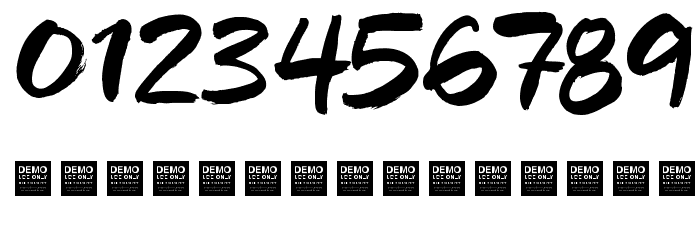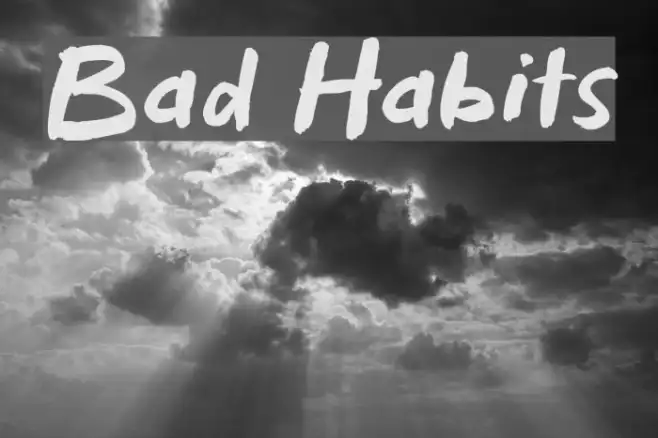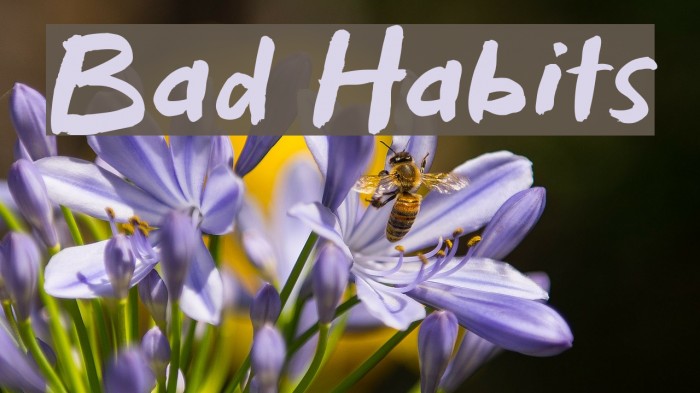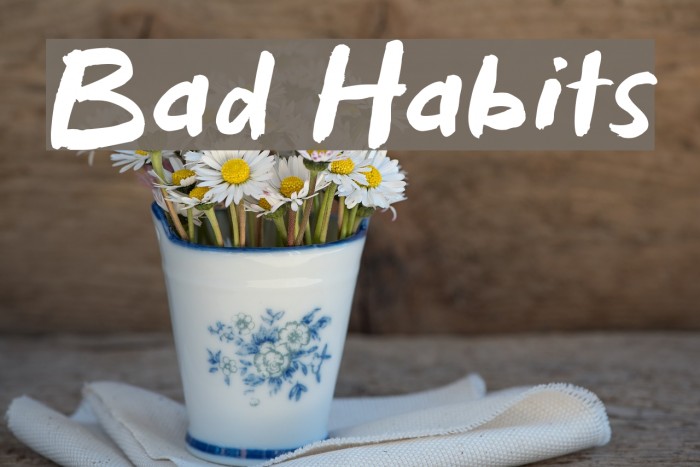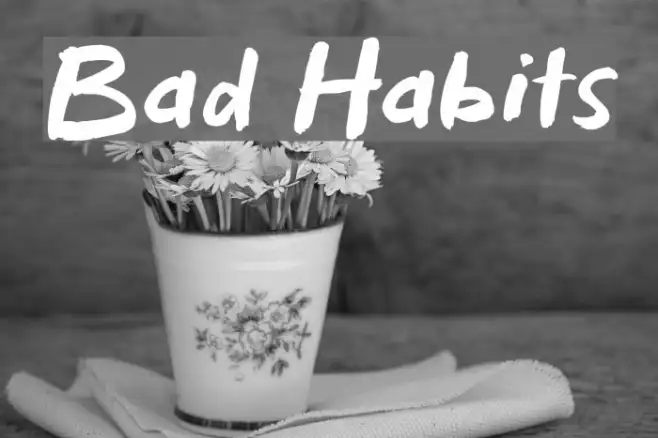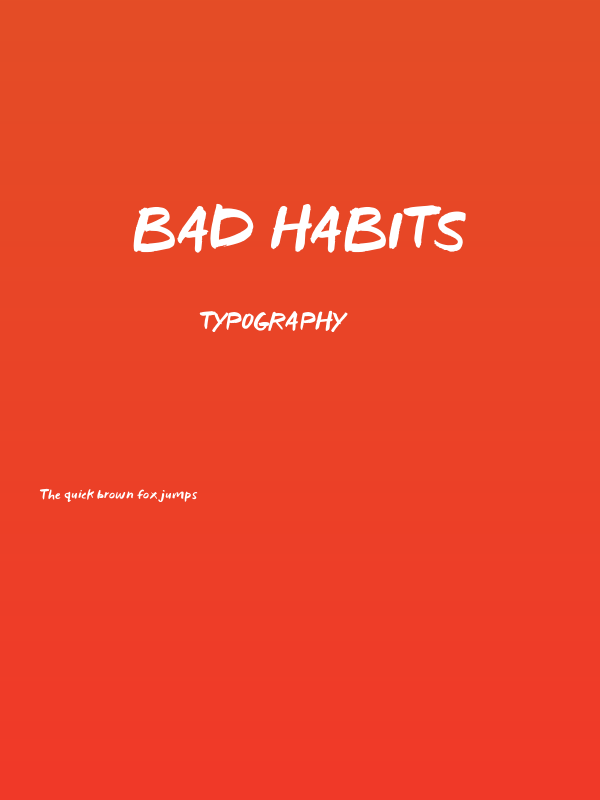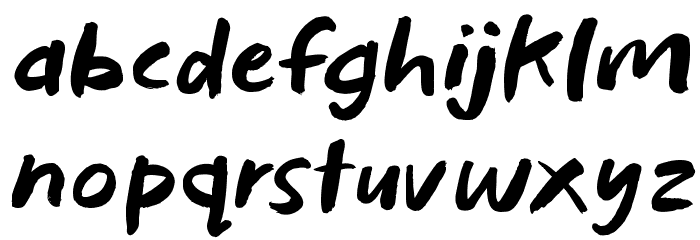
Bad Habits Font
Bad Habits Description
This font features a bold, brush-like style that exudes a casual and energetic vibe. The strokes are thick and dynamic, giving each character a sense of movement and spontaneity. The uppercase and lowercase letters maintain a consistent flow, while the numbers and special characters integrate seamlessly with the overall design. The font's hand-drawn appearance makes it ideal for projects that require a personal touch or an informal aesthetic. Its boldness ensures readability, while the irregularities in the strokes add character and uniqueness.
| Overall Style | Casual, Energetic, Hand-drawn |
| Proposed Projects | Ideal for posters, branding, social media graphics, and any project needing a personal, informal touch. |